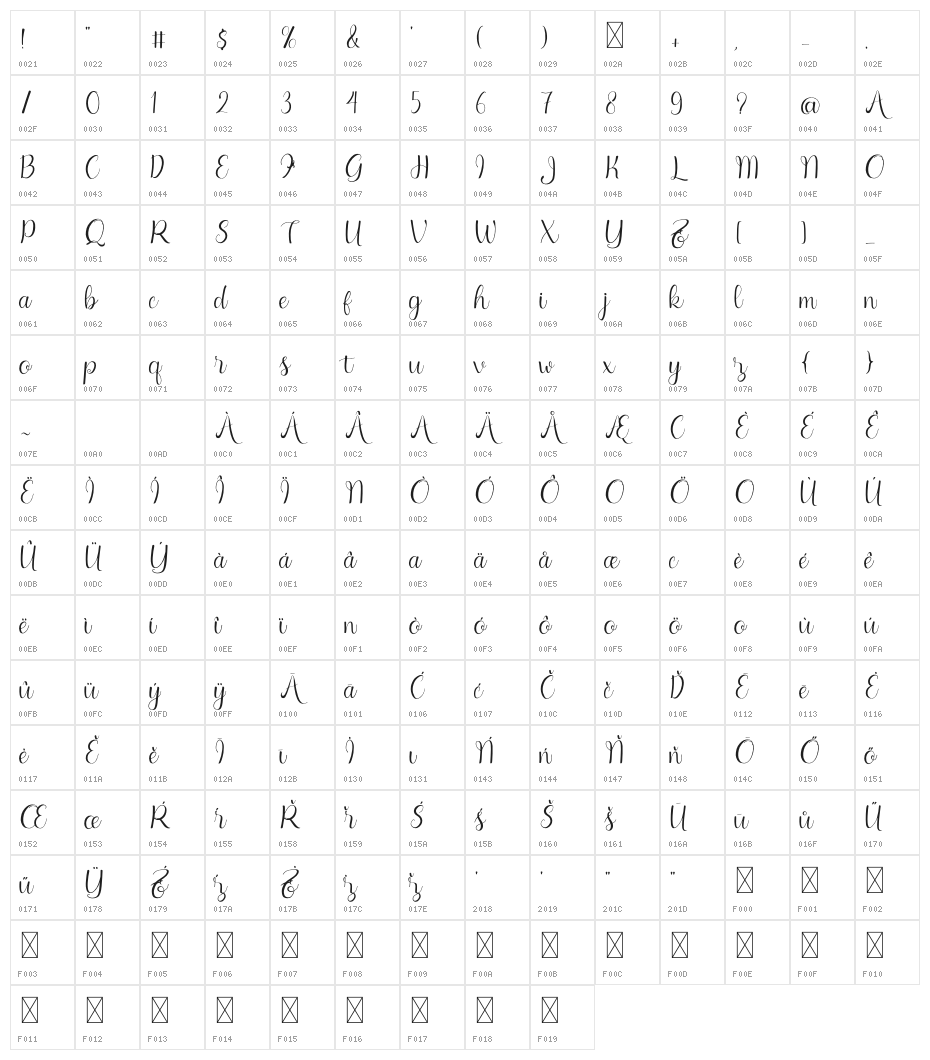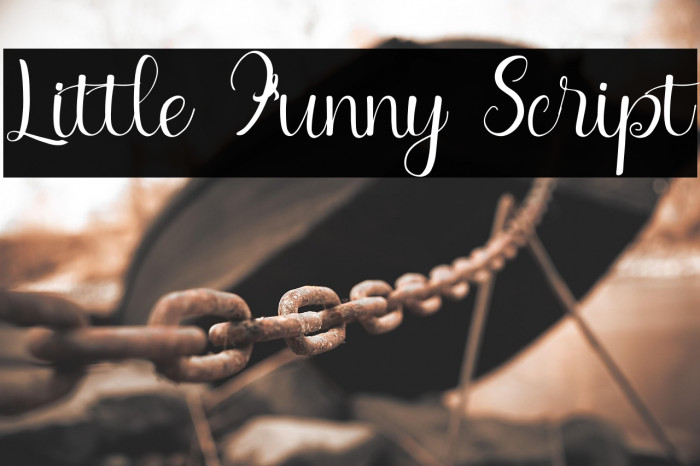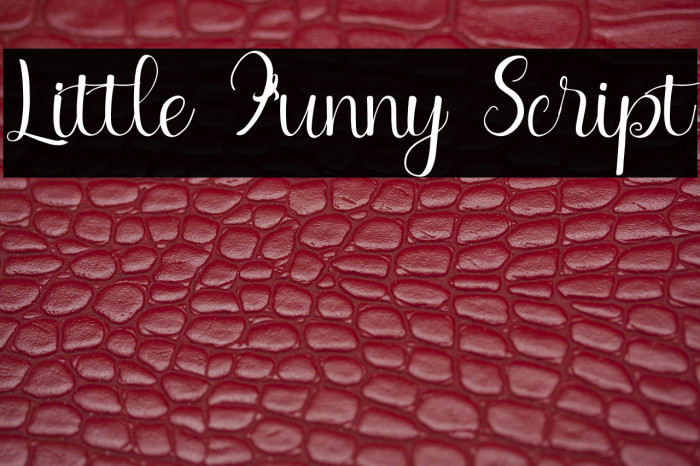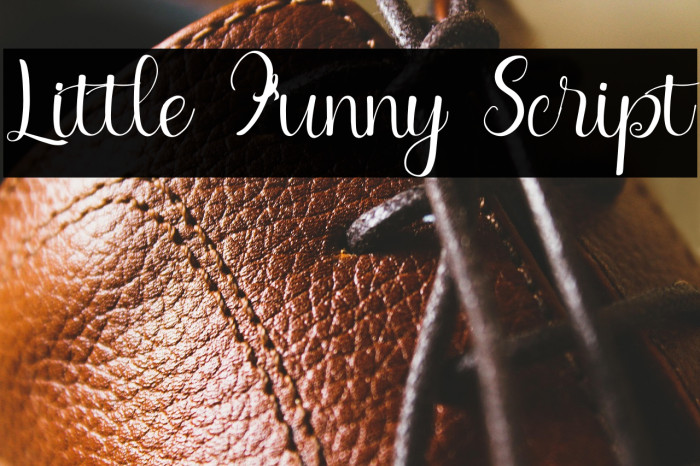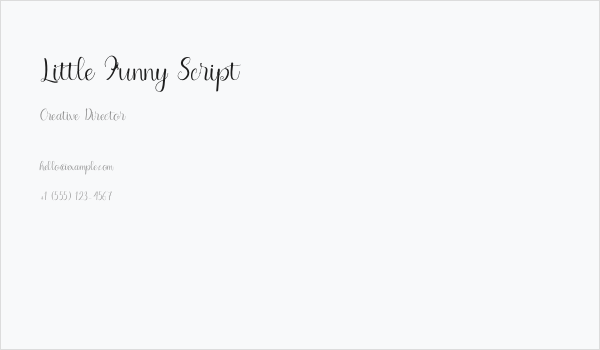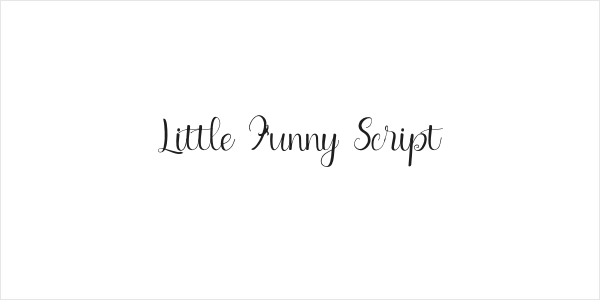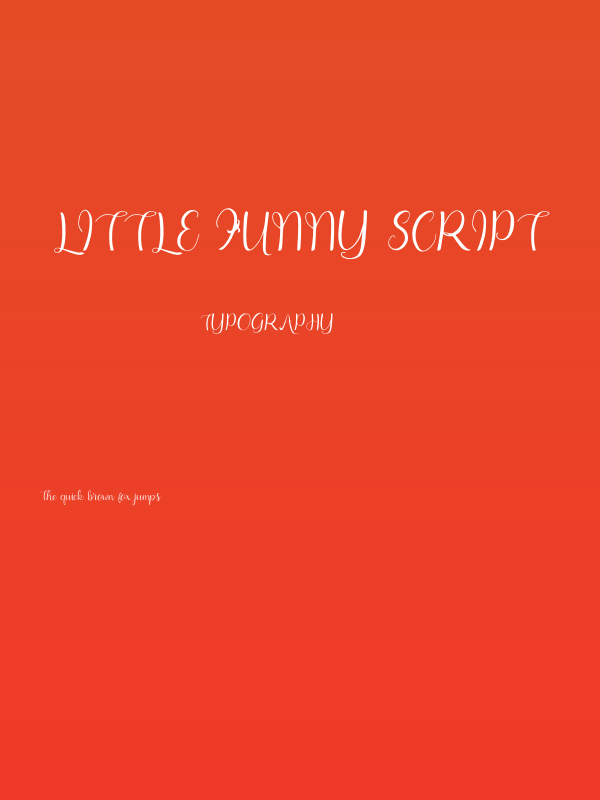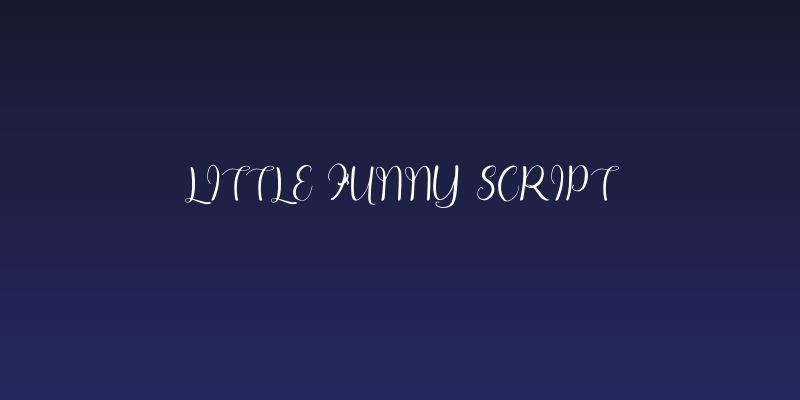
Little Funny Script Font
Little Funny Script Description
This playful and whimsical script font features elegant, flowing curves and a handwritten style that exudes charm and personality. The uppercase letters are bold and expressive, with unique flourishes that add a touch of sophistication. The lowercase letters maintain a consistent flow, enhancing readability while retaining an artistic flair. Numbers are designed with the same playful spirit, ensuring they complement the overall aesthetic. Special characters are thoughtfully crafted, maintaining the font's cohesive style. This font is perfect for projects that require a personal touch, such as invitations, greeting cards, or branding materials.
| Use Case | Headlines, Logos, Invitations |
| Proposed Projects | Ideal for invitations, greeting cards, branding, and any project needing a personal touch. |